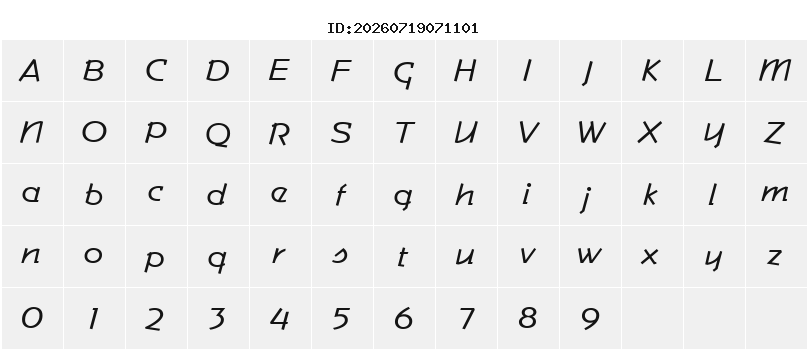
• Font Name: Commerce-Lean
• Full Font Name: Commerce-Lean
• Manufacturer: Greg Thompson for The Font Bureau, Inc
About Commerce-Lean.ttf
Commerce-Lean.ttf is a modern, elegant sans-serif font designed for ultimate readability and visual harmony. Perfect for branding, headlines, web design, and print materials.